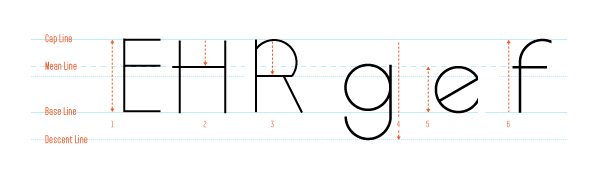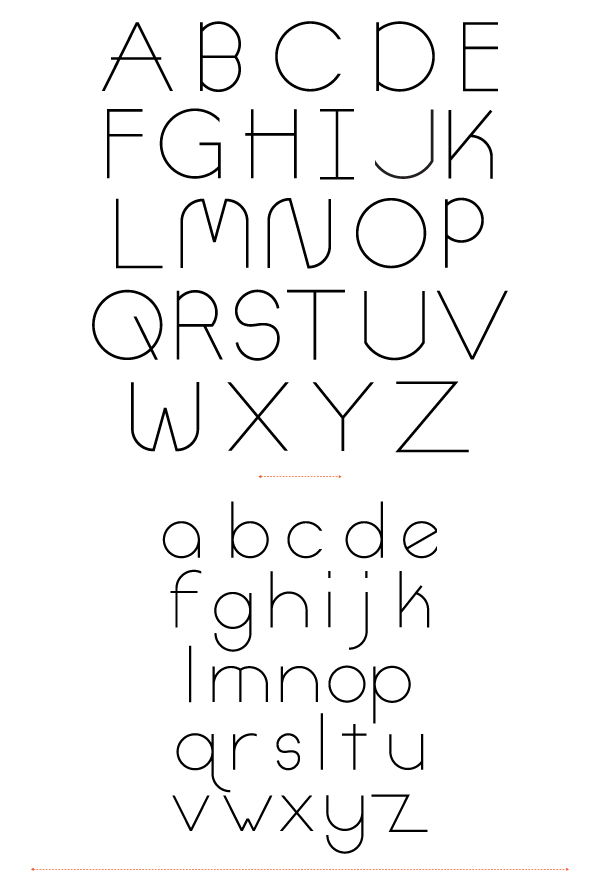
Final Product What You'll Be Creating
Lets get one thing straight, there is a difference between ‘lettering’ and ‘type design’, this can be some serious stuff. There are people who strictly design letter-forms for their entire lives. They live, breath, eat, sleep, drink and pee typography – I truly admire them. In my personal work I lean towards lettering and don’t want to step on any toes by saying this is ‘THE’ way to design type. This is a way to go about designing a typeface using Ai. Everyone loves letter, so lets have some fun!
Learning typography is truly like learning a new language, so I will try to walk the fine line of explaining things so that anyone can understand and using typographic terminology. I will mess something up, so to all the type experts, please go easy.
The inspiration for a typeface can come from anything, a tree, a ladder, rocks, people, old office supplies laying around … pretty much anything and everything. You could start in a variety of ways, pencils sketches, cutting out paper shapes and moving them around, etc…
Step 1a
Get inspired. Look at the legends. What kind of type do you like?
Decide what kind of typeface you want to create. Ask yourself what you want to do with the typeface your creating… Do you want to create a typeface from your handwriting? Do you want to use it for big bold, headline type? Or are looking to use it as text in a book? Having a general idea of what your end goal is, will help to make a lot of the decisions throughout the process of creating a typeface.
Step 1b
For the sake of efficiency and simplicity I will be creating a sans-serif, bold and basic headline typeface inspired by both ITC Avant Garde and Bernhard Fashion (uppercase). I love how clean and basic the forms forms are, based around simple geometry.
Step 2a
Because the basis for this typeface is basic geometry, start by using the most basic shapes — line, square, circle and triangle. Create them using the line and shape tools, and copy and pasting sections or pieces of the line )with a stoke).
Step 2b
Instead of a fill, use a line with simple black stroke, this will allow experimentation with stroke weight. Later, we will choose a stoke weight and make it consistent throughout.
Step3a
Simply start creating characters (letter forms). For whatever reason I have always seem to start with an Uppercase A. As you can see (in grey) I am just using a triangle and a horizontal line to create the ‘A’ shape. Now that’s keeping it simple.
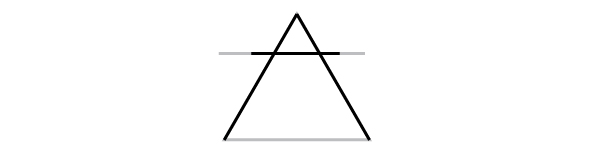
Step 3b
Experiment with shapes and the forms of the letters. Using the square shape you could have the A ‘lean’ to the left or right.
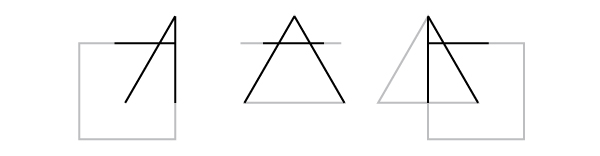
Step 3c
Instead of drawing and editing every line with the pen or line tools, using the shapes will make things consistent and super easy. Another way to make things easier on yourself is to use a ‘white shape’ to visually ‘crop’ parts of the shapes, so that you can see what the letter form looks like. The simplest example of this is creating the letter ‘C’. Start with a circle (1) and simply place a white triangle over the top (2) and you’re finished (3). (the grey background is so you can see the white shapes)
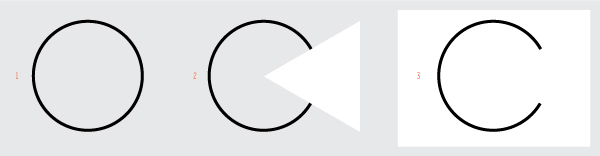
Step 4
Obviously, I cannot break down how to create everything letter, but here I will break down how I designed the ‘B’ and how I implemented the use of the ‘white shape’. Create 2 overlapping circles (1) and draw a horizontal line between both point where the circle intersect (2). Draw a line where the 2 circles and the horizontal line intersect on the left side (3). Next, add a white fill to the bottom circle (to crop the overlap from the top circle) and using a white shape, ‘crop’ the left side of the vertical line (4). Next, using the pen tool, simply ‘crop the top of the bottom circle (5) and move the initial horizontal line on top.
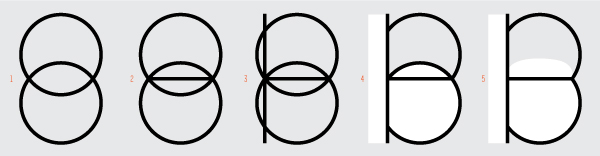
Step 5
At this point I like to start experimenting with stroke weight and even putting together words if possible. Get down and go nuts!
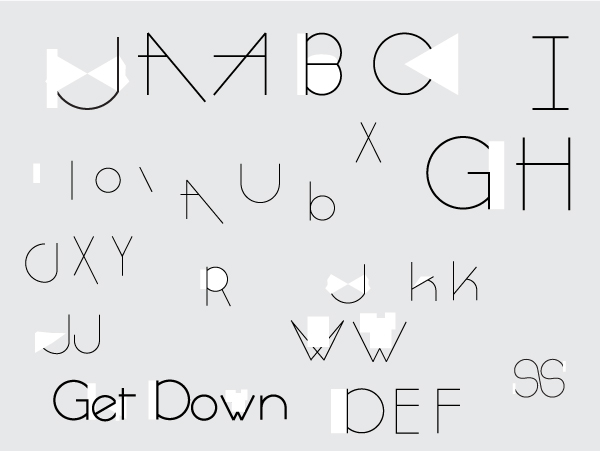
Step 6a
Things may start getting a little crazy, so the way to keep things organized is to establish a grid. You don’t have to use a grid, you may be going for any entirely different look/style of typeface, but using a grid is the best way to gain consistency throughout your letters. For example, when creating letters that are similar in structure like the E and F and H, using a grid will help to keep the horizontal lines, or cross bars, of letters at the same height (orange).
Step 6b
Setting up the grid should be fairly easy, there are just a few determinations you will have to make, and from there its basically following the guides. Using light blue (like in grade school ha ha) draw lines that will determine the height of the capital letters (1), known as the cap line and baseline. Next, establish a line that we be serve as the main horizontal guideline (2), or the mean line. For the typeface I’m designing, i will also establish a secondary horizontal guideline (3).